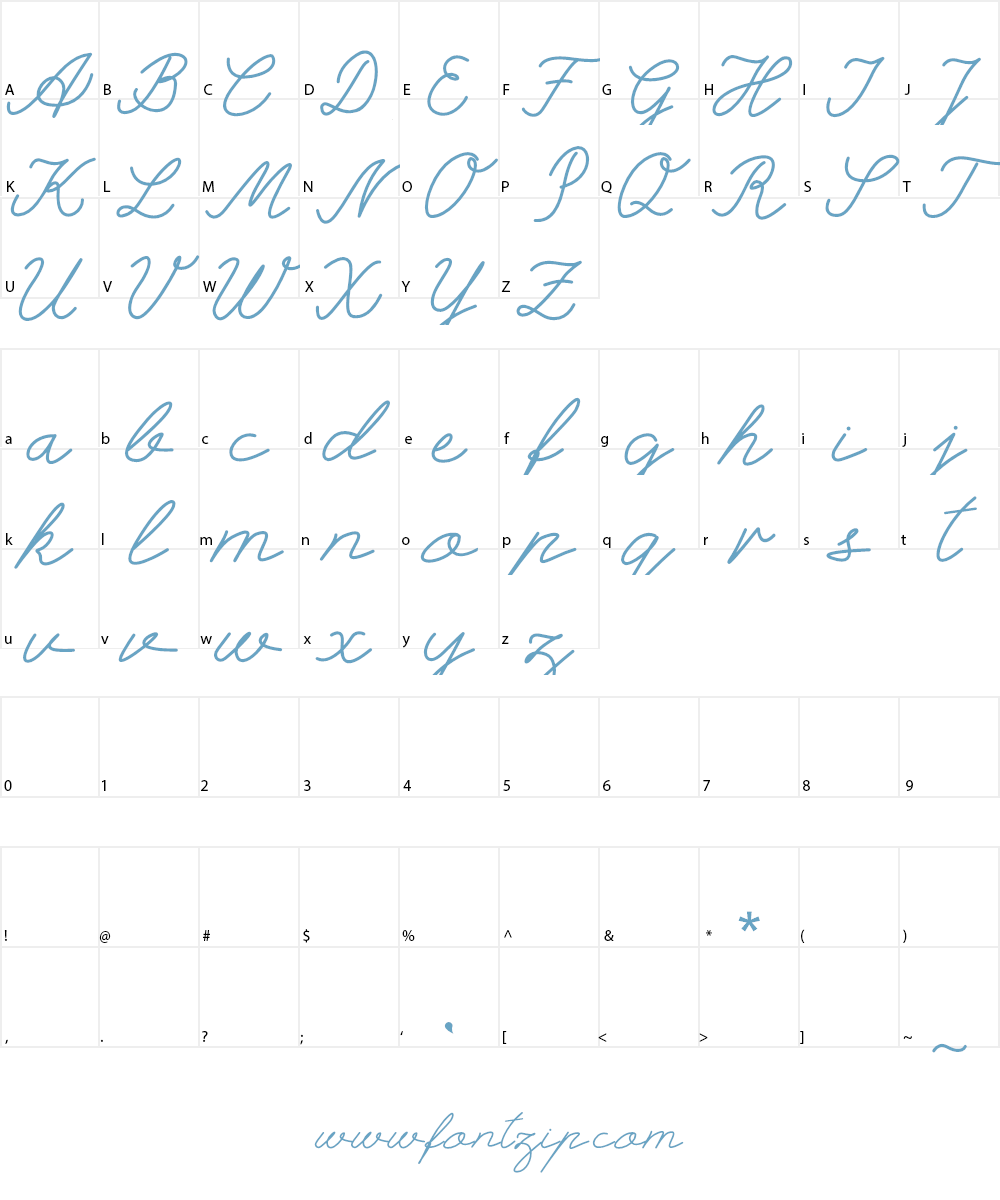
Selfilla is a beautiful font inspired by natural handwriting. This will add authentic touches to each design project, and fiture opentype (calt, salt, signature, swash)